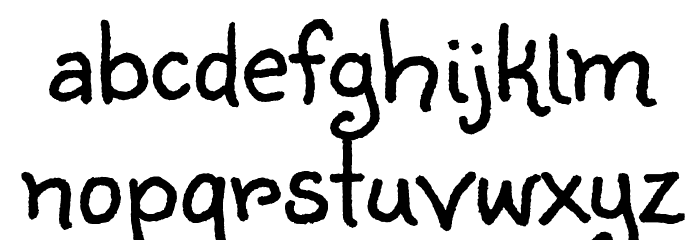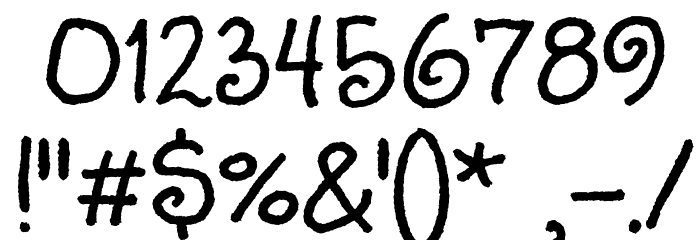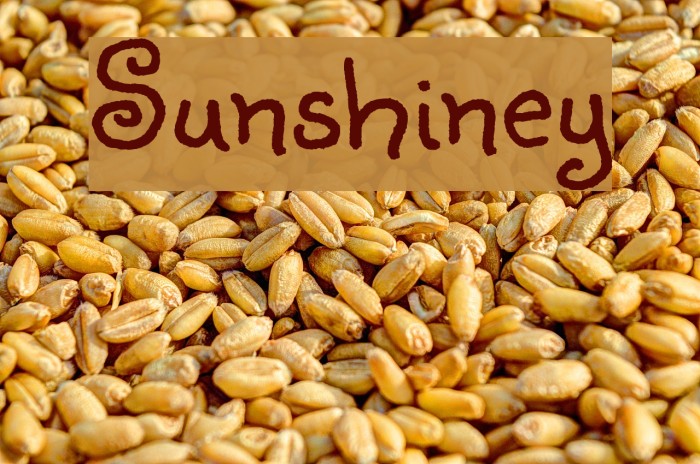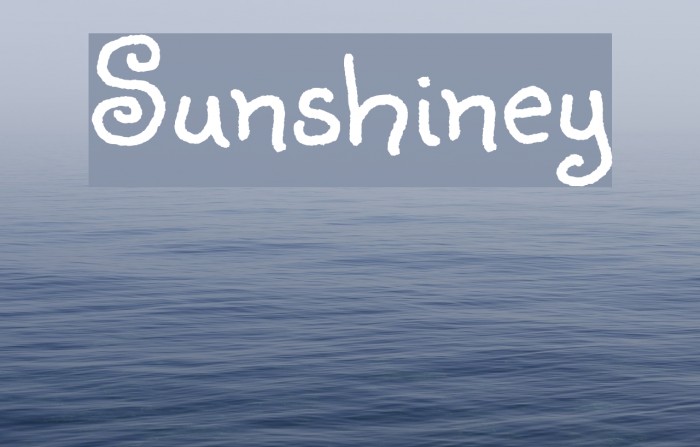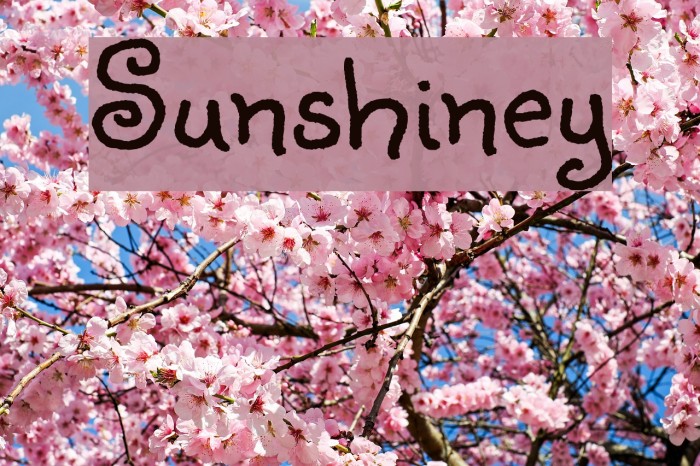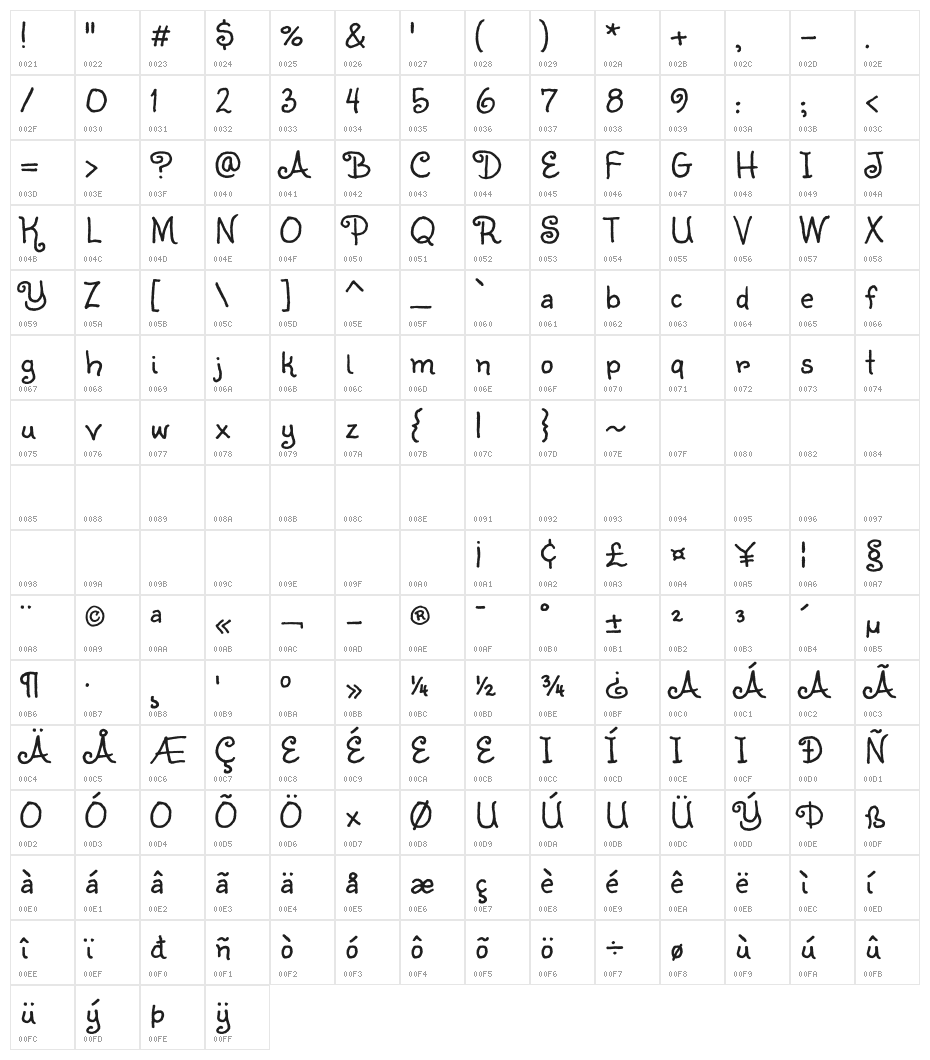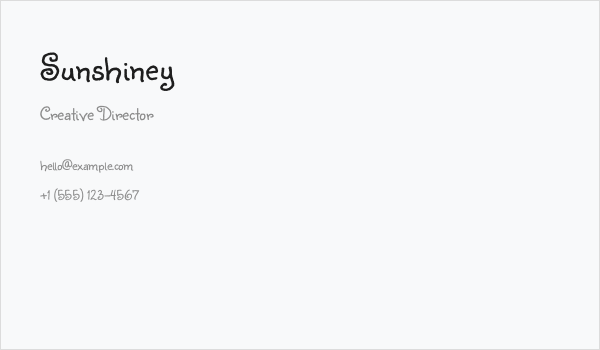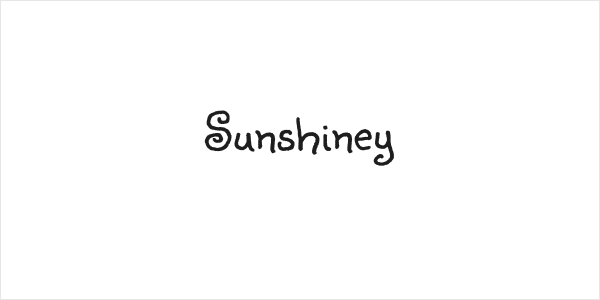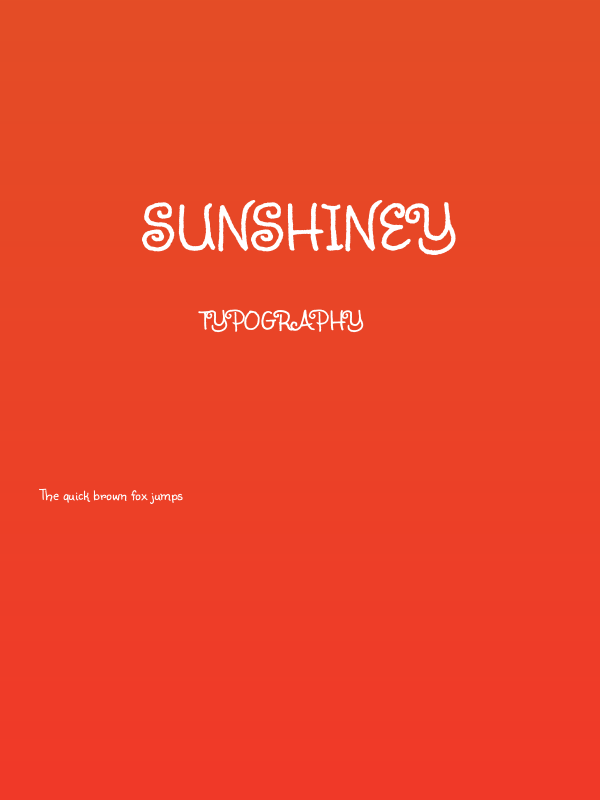
Sunshiney Font
This font exudes a playful and whimsical charm, characterized by its hand-drawn, curly letterforms. The uppercase letters are bold and slightly irregular, giving them a lively and informal appearance. The lowercase letters maintain a consistent style, with rounded edges and a friendly demeanor. Numbers and special characters follow the same playful design, ensuring a cohesive look across all text. The overall style is reminiscent of a child's handwriting, making it perfect for projects that require a touch of fun and creativity.
A playful, hand-drawn font with curly, whimsical letterforms.
- Proposed Projects: Ideal for children's books, playful branding, greeting cards, and creative posters.
- Use Case: Headlines, Logos, Creative projects